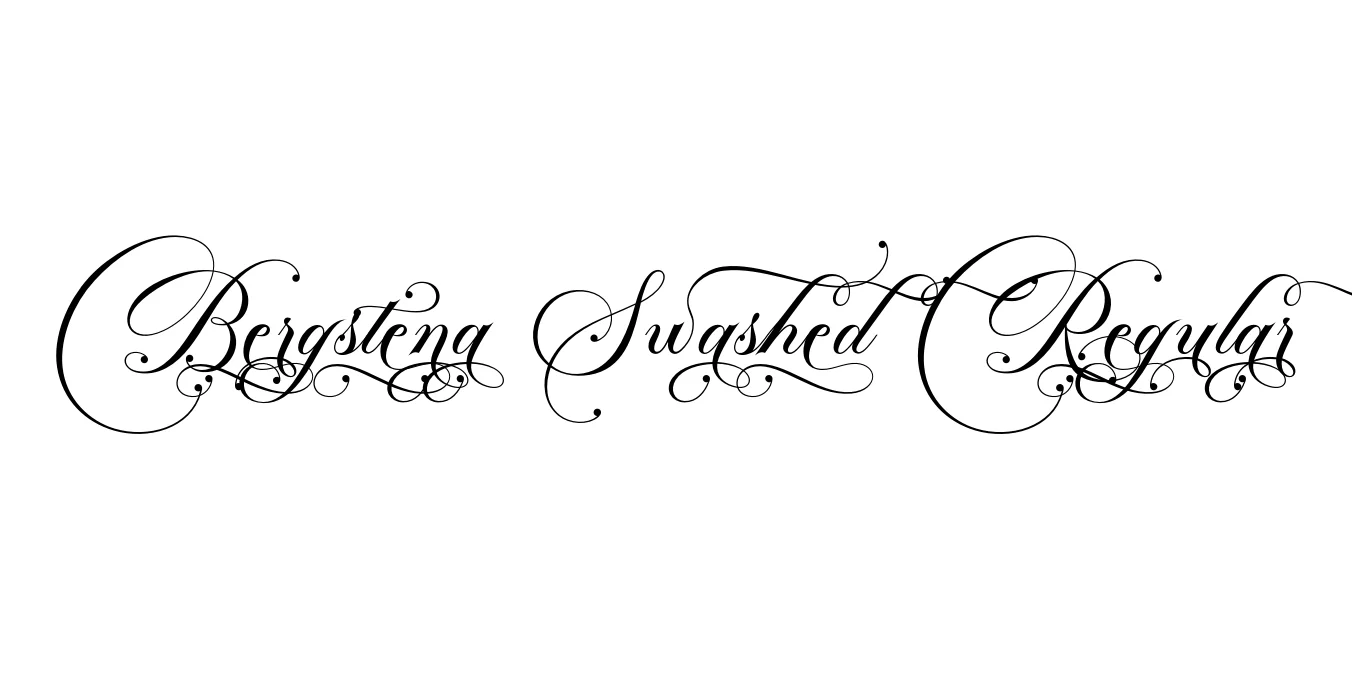
Bergstena Swashed Regular
Designed by Måns Grebäck
Bergstena Swashed Regular is an elegant, high-contrast script typeface designed by the renowned typographer Måns Grebäck. It features dramatic, flowing swashes and sophisticated letterforms that evoke a sense of traditional calligraphy blended with modern luxury. The typeface is part of the larger Bergstena family, known for its versatility in formal invitations and high-end branding projects where a touch of class is required.
This particular variation, the Swashed Regular, emphasizes the decorative nature of the script, providing users with a wealth of flourish options for titles and headings. It is highly optimized for legibility while maintaining an artistic flair, making it a favorite for wedding stationery, logotypes, and editorial design where a classic, hand-crafted aesthetic is necessary to stand out.
Bergstena Swashed Regular Best Uses
Perfect for formal announcements and high-end stationery.
Ideal for creating a sophisticated and memorable brand identity.
Adds a decorative touch to magazine spreads and book covers.
Great for elegant quotes and promotional posts.